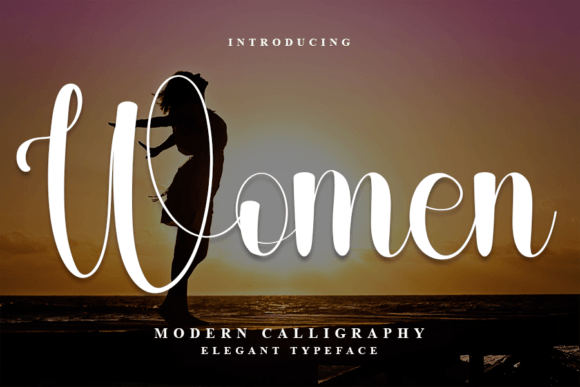
Women Font: The Quintessential Font for Expressing Love and Elegance
In a world saturated with digital communication, the art of handwritten letters has been relegated to the past. However, there's something undeniably special about receiving a heartfelt letter penned with love and care. With Women Font, you can recapture the magic of handwritten correspondence and make your words truly shine.
Women Font is a beautiful and refined script font that exudes elegance and sophistication. Its flowing lines and graceful curves create a timeless aesthetic that is perfect for expressing love, appreciation, and heartfelt emotions. Whether you're writing a love letter to your significant other, sending a heartfelt message to a friend, or creating a stunning wedding invitation, Women Font will elevate your words and make them truly unforgettable.
Crafted by the skilled hands of FreshTypeINK, Women Font is a versatile font that can be used for a wide range of creative projects. Its delicate strokes and elegant flourishes add a touch of charm and personality to logos, branding, social media posts, and other digital designs. With Women Font, you can create designs that capture the essence of romance, femininity, and timeless beauty.
Beyond its aesthetic appeal, Women Font is also incredibly easy to use. Its smooth, consistent flow makes it a joy to write with, and its clean, legible characters ensure that your messages are easy to read and understand. Whether you're a seasoned designer or a creative novice, Women Font is the perfect choice for adding a touch of sophistication and elegance to your projects.